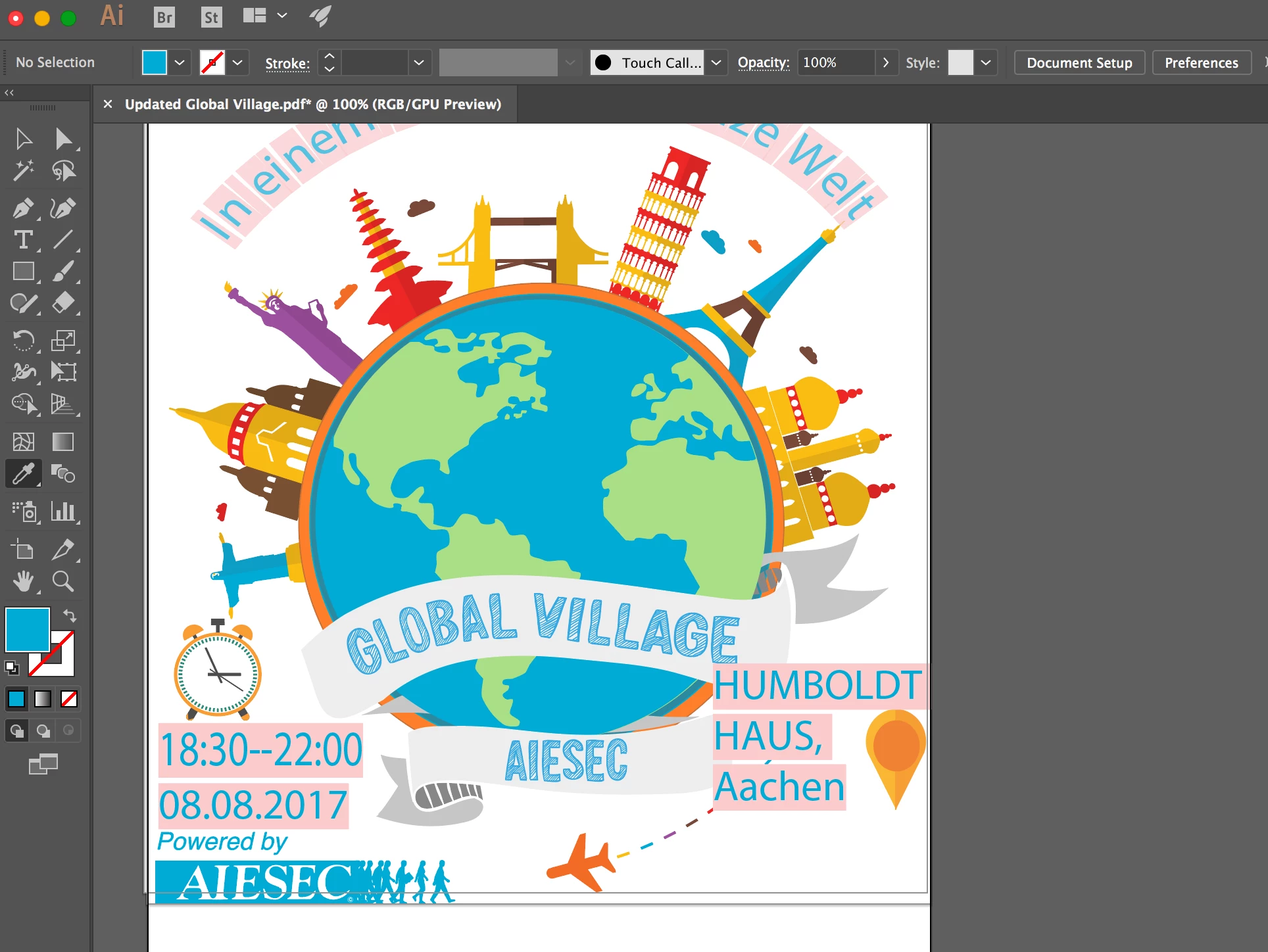
Illustrator : Need Help with Finding Fonts
Bear with me, I'm new at Illustrator. I have two questions that are relatively simple;
1). How do I copy the font used for the words ''Global Village'' and ''AIESEC''?
2). Is it possible to move the words ''AIESEC'' more towards the left of the banner so that I can add the words ''INCAS'' too?
Your best bet might be to remove that text and reset it. If you're a Creative Cloud subscriber, you get access to Typekit fonts. There's a font there that's similar called Brim Narrow Combined although the lines in the fill are horizontal instead of diagonal. You can add it by going to your font menu and clicking on Add Fonts from Typekit. Type the name of the font in the search field. When it brings up the font, click on Quick Sync.
To get the curved baseline, you'll need to draw a line that follow that curve. I'd recommend the Pencil Tool (N) which is easy to revise by redrawing over a curve while it's still selected. Then click and hold on the Type Tool in the Tool panel to change to Type on a Path Tool. Then click on the path you drew to set the type on it.
The letters for GLOBAL VILLAGE and AIESEC do not appear to be a type font since each letter that repeats (the "Ls", "As", etc.) do not match each other as they would if they were part of an actual font. I am thus assuming that they are drawn objects which can be individually selected using the Direct Selection Tool (The White Arrow at the top right of the Tool Panel). Depending on how they are drawn you should be able to Option-click on each letter to select it. Hold the shift while doing so to click on each of the other letters until the whole word is selected. Once they are selected press the V key. Hover your cursor over the selected word until you see a solid black arrow and then you can drag the word as needed. Since this is not a type font, though, I don't know how you'll be able to add the extra word "INCAS".
You would need to have that font installed on your machine. It looks like you're missing the font used in the rest of the piece since it's highlighted in pink. I can't tell from the picture if the text in the banner has been converted to outlines (in which case it is no longer live text but more like shapes), if it is part of the artwork which could be a raster graphic (although I kind of doubt that), or if you actually have that font installed. If by chance that text is live and you do have the font, you should be able to select it with the Selection Tool (V) to move it or the Type Tool (T) to insert characters.